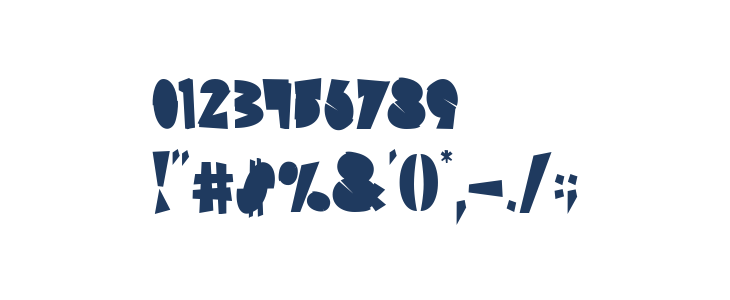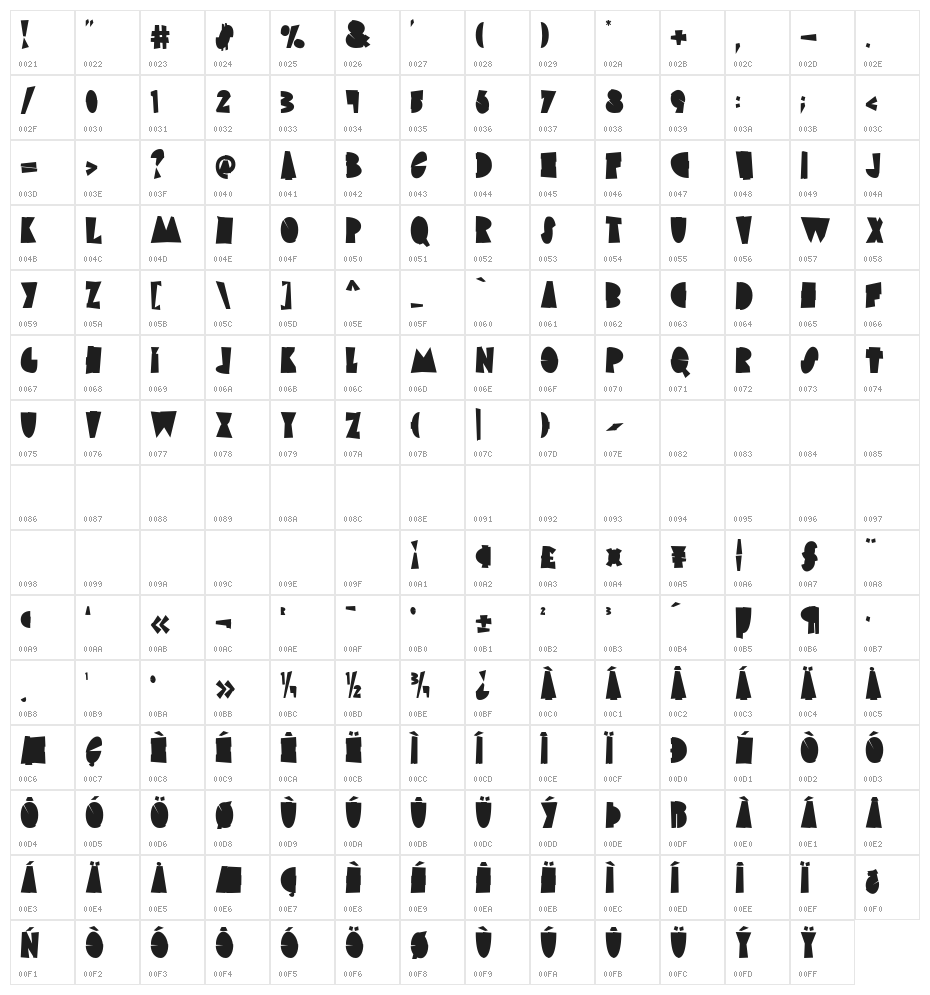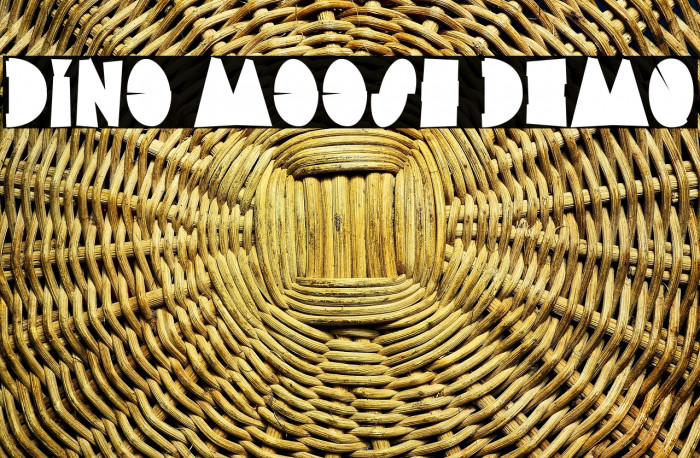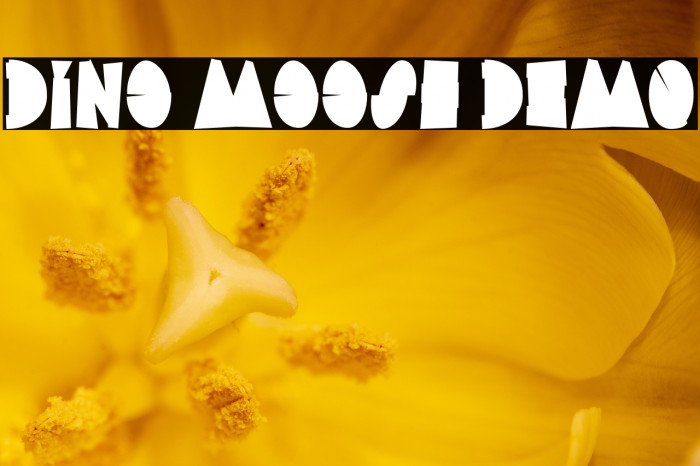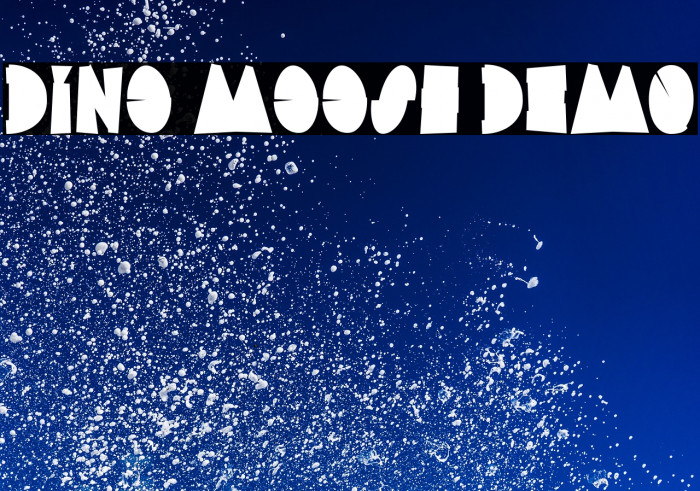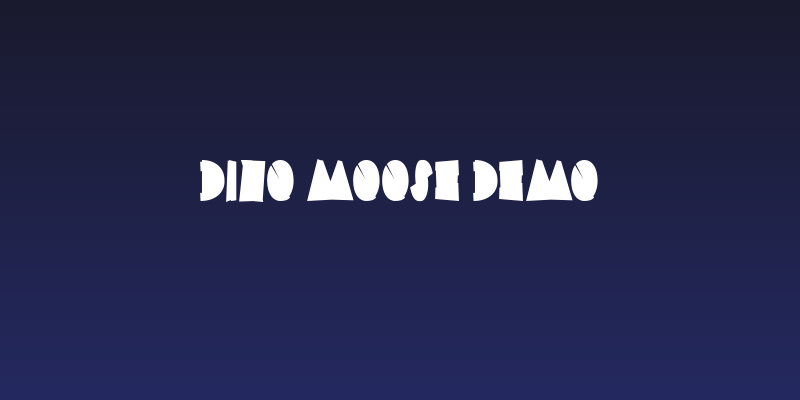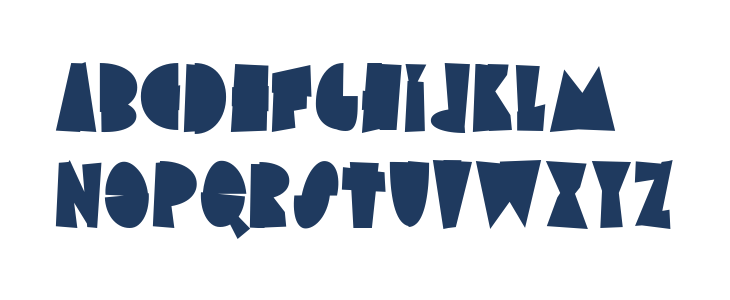
Dino Moose DEMO Font
Dino Moose DEMO Description
This font features a bold, playful design with a distinctly chunky and geometric style. The characters are crafted with sharp angles and varying widths, creating a dynamic and eye-catching appearance. The uppercase and lowercase letters maintain a consistent style, with exaggerated curves and edges that give the font a unique, almost cartoonish feel. Numbers and special characters follow the same design principles, ensuring a cohesive look across all glyphs. The font's boldness and distinctive shapes make it ideal for projects that require a strong visual impact.
| Overall Style | Playful, Modern |
| Proposed Projects | Ideal for children's books, playful branding, posters, and any project needing a bold, fun aesthetic. |